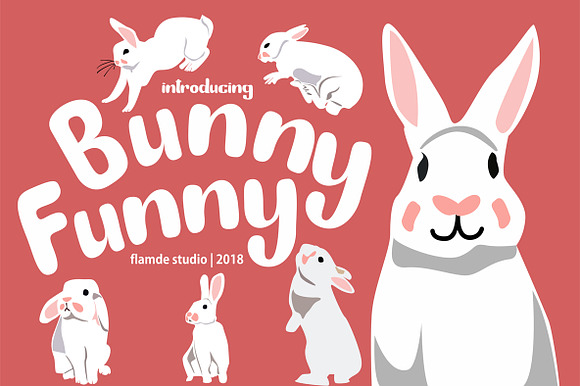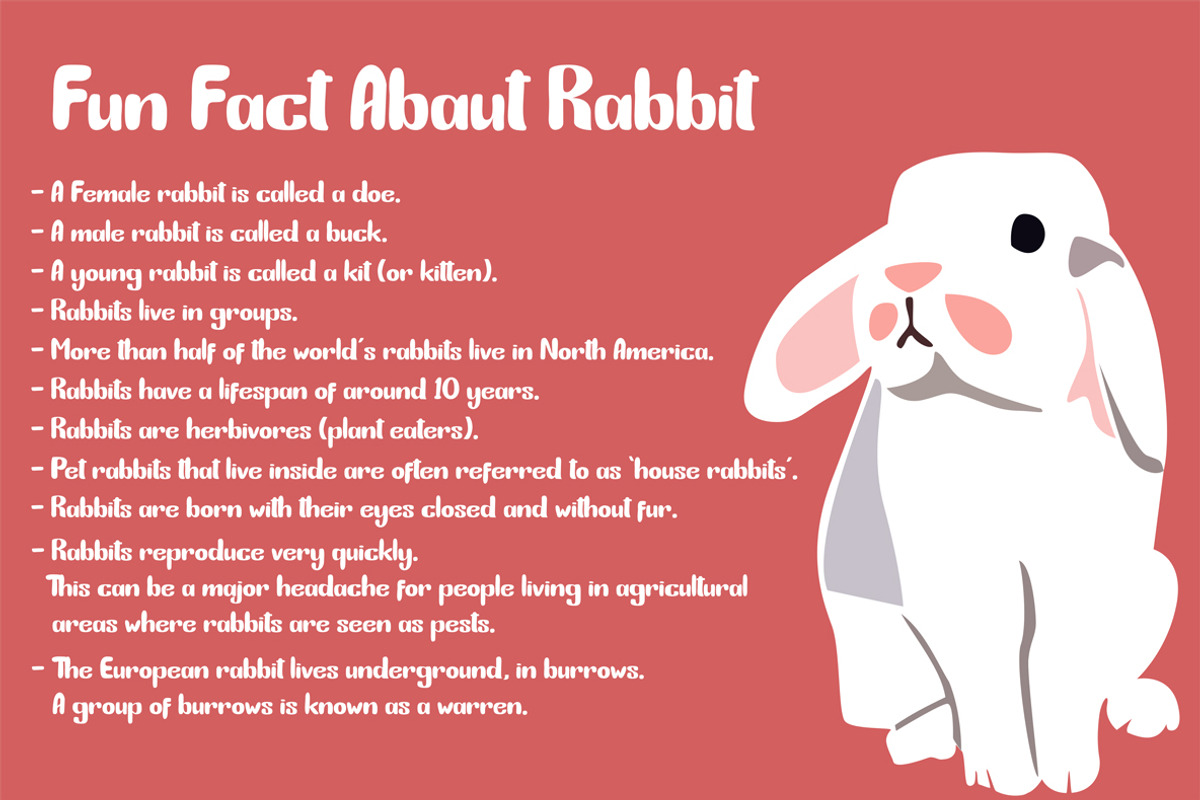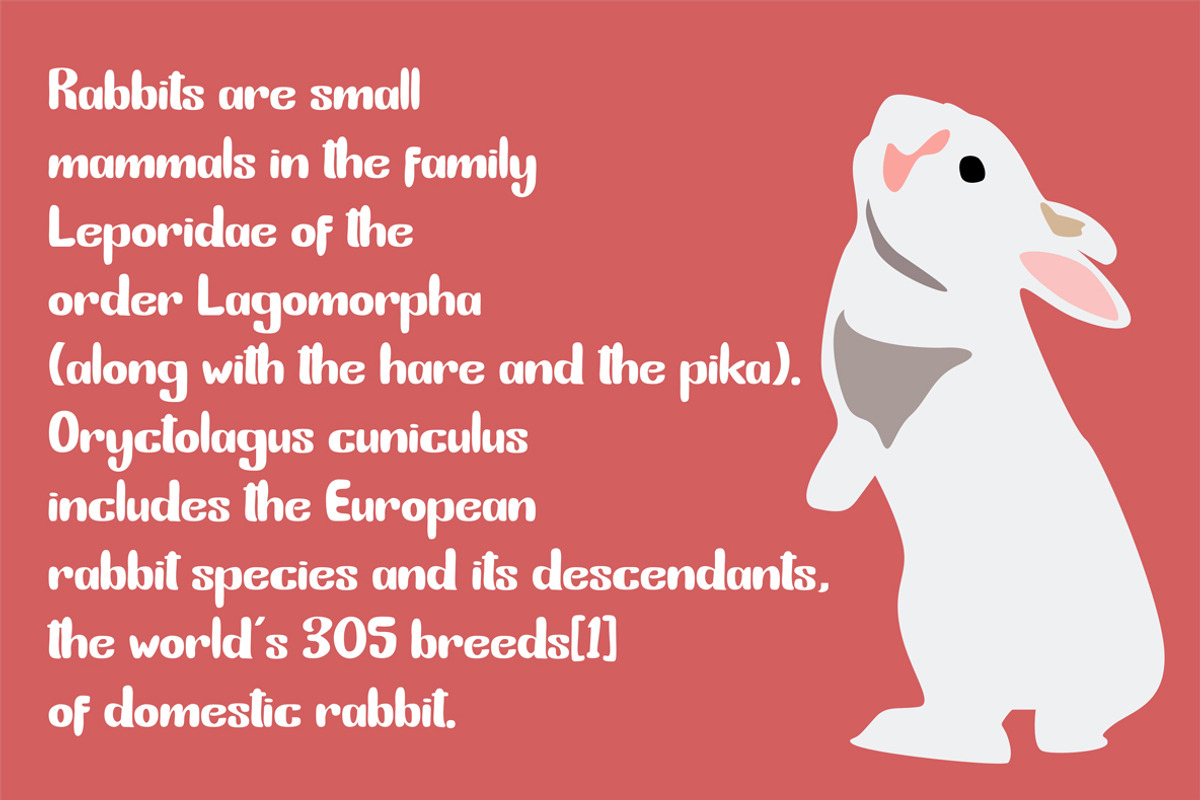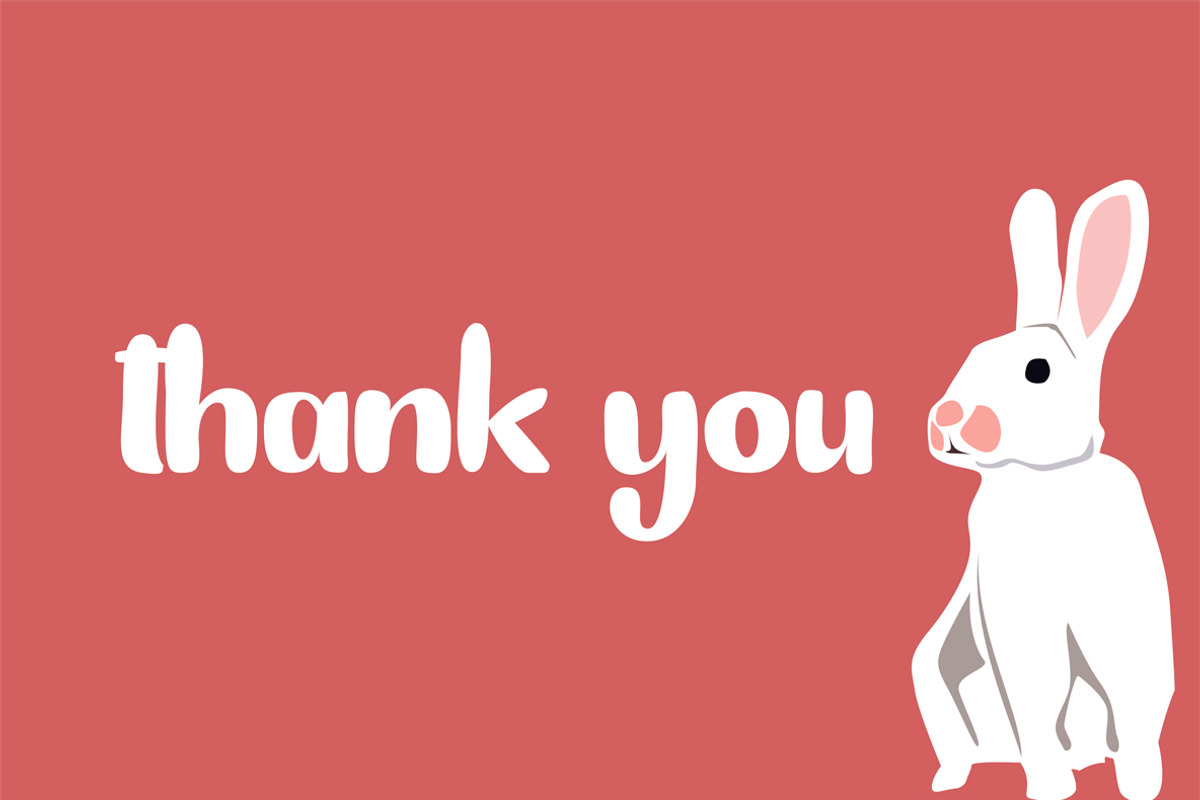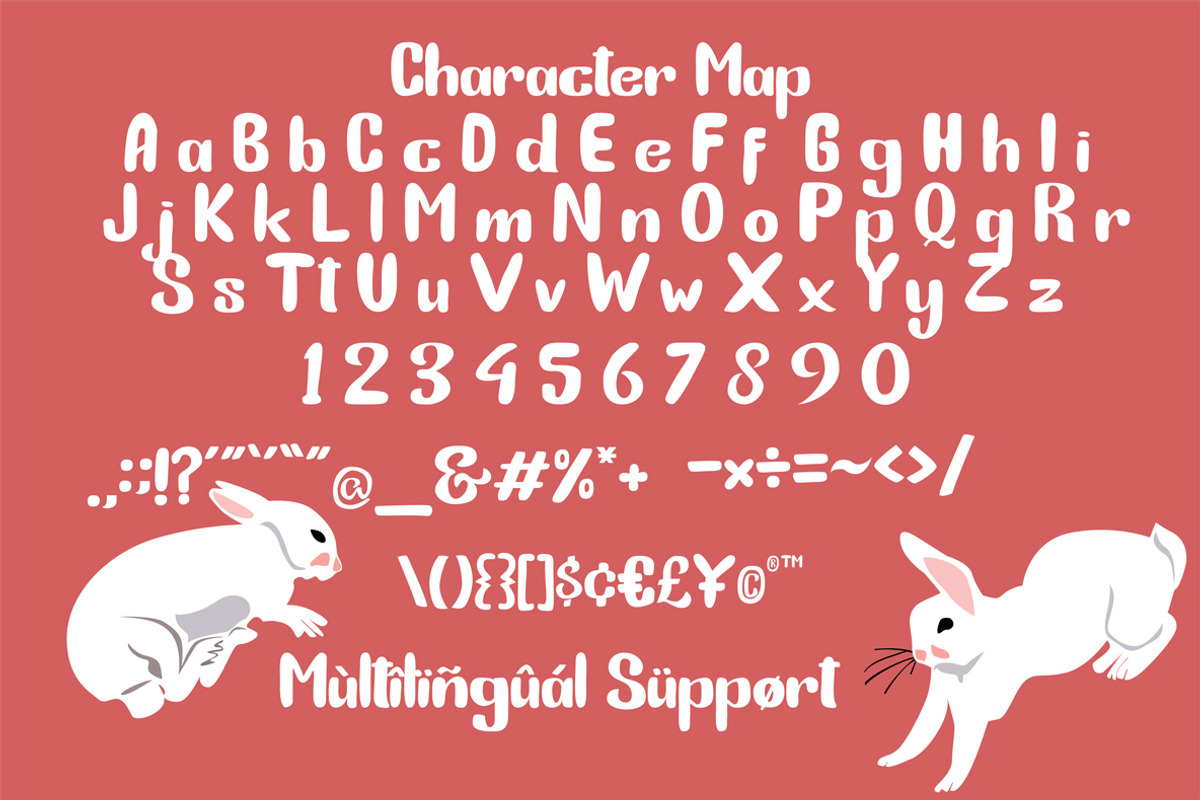
Bunny Funny | Playfull Font
Meet Bunny Funny, a fun font that gives the feeling of 'jotting' something down real fast! This is hand-drawn fonts truly give off a real personal touch to your projects
It is perfectly used for various purposes such as editorial design, branding, art quote, book / cover title, poster, apparel design, product packaging, label, special events or anything that need hand-drawn taste.